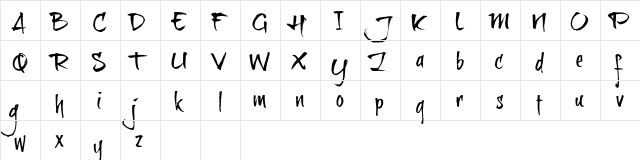
brushtipTexe TRIAL Regular
| Foundry | JOEBOB graphics / JJW van der Ham |
| Designer | JOEBOB graphics / JJW van der Ham |
Design Context for brushtipTexe TRIAL Typeface
brushtipTexe TRIAL flows with the natural rhythm of handwritten lettering, making it ideal for designs that call for warmth and personal expression.
Font Pairing: Combine brushtipTexe TRIAL with a simple geometric sans for maximum contrast — the tension between flowing curves and clean structure is a classic typographic pairing.
Pro Tip: Pair brushtipTexe TRIAL with a clean sans-serif for supporting text. The contrast between fluid script and geometric structure creates an elegant typographic hierarchy.